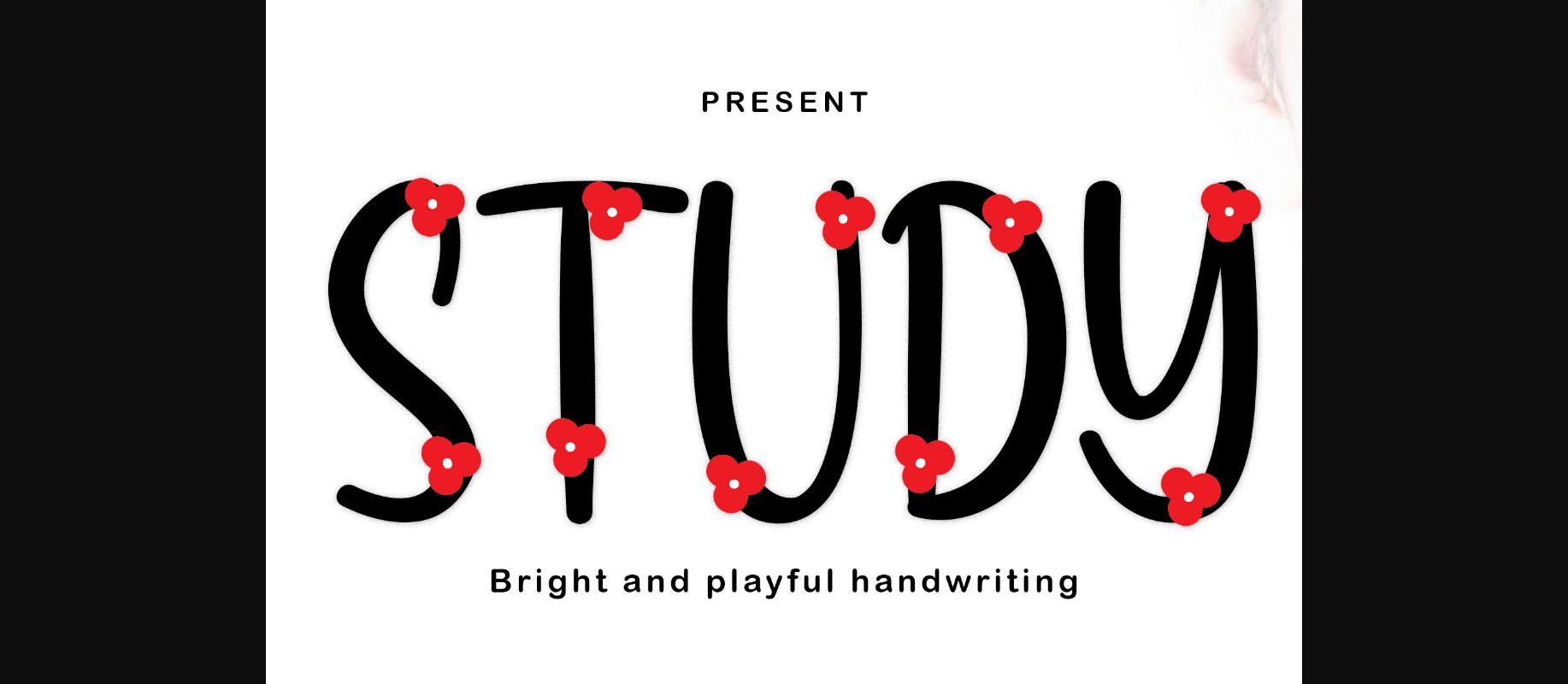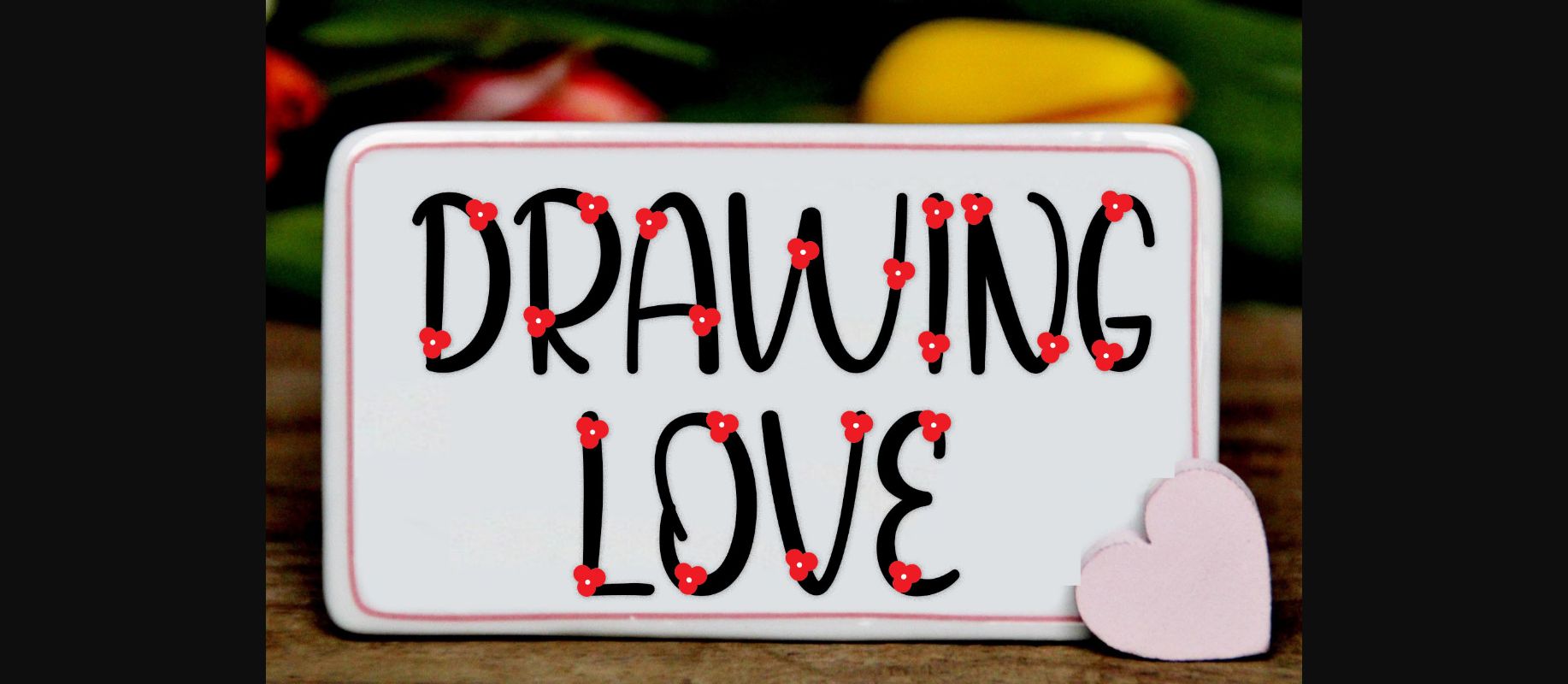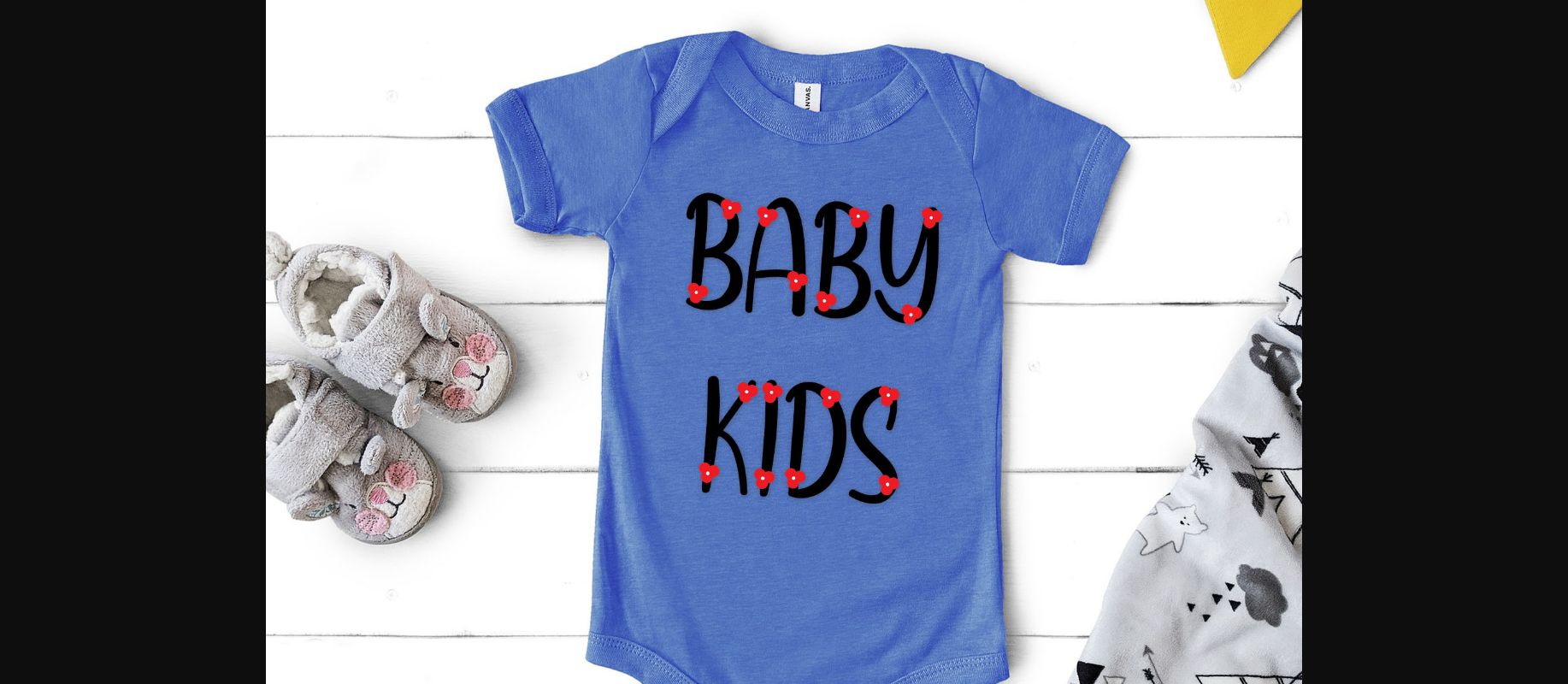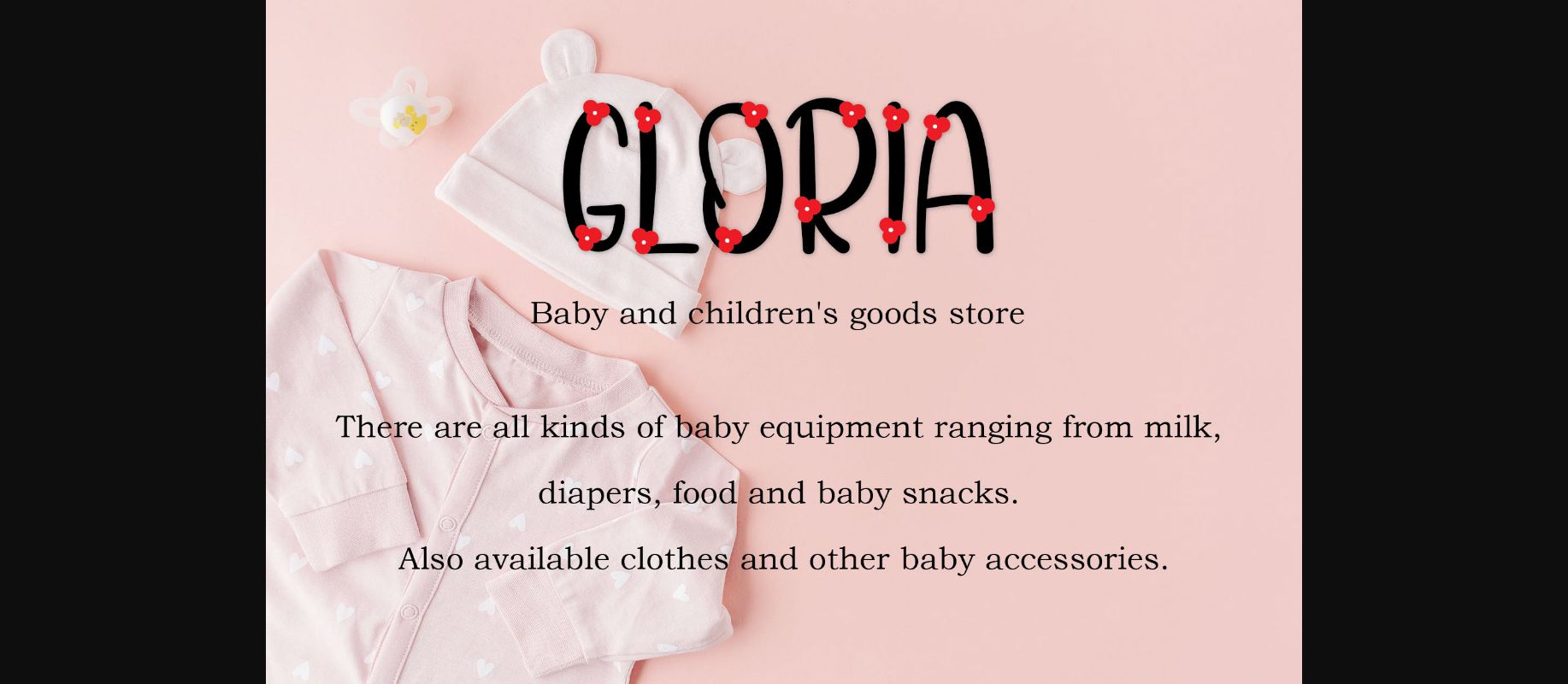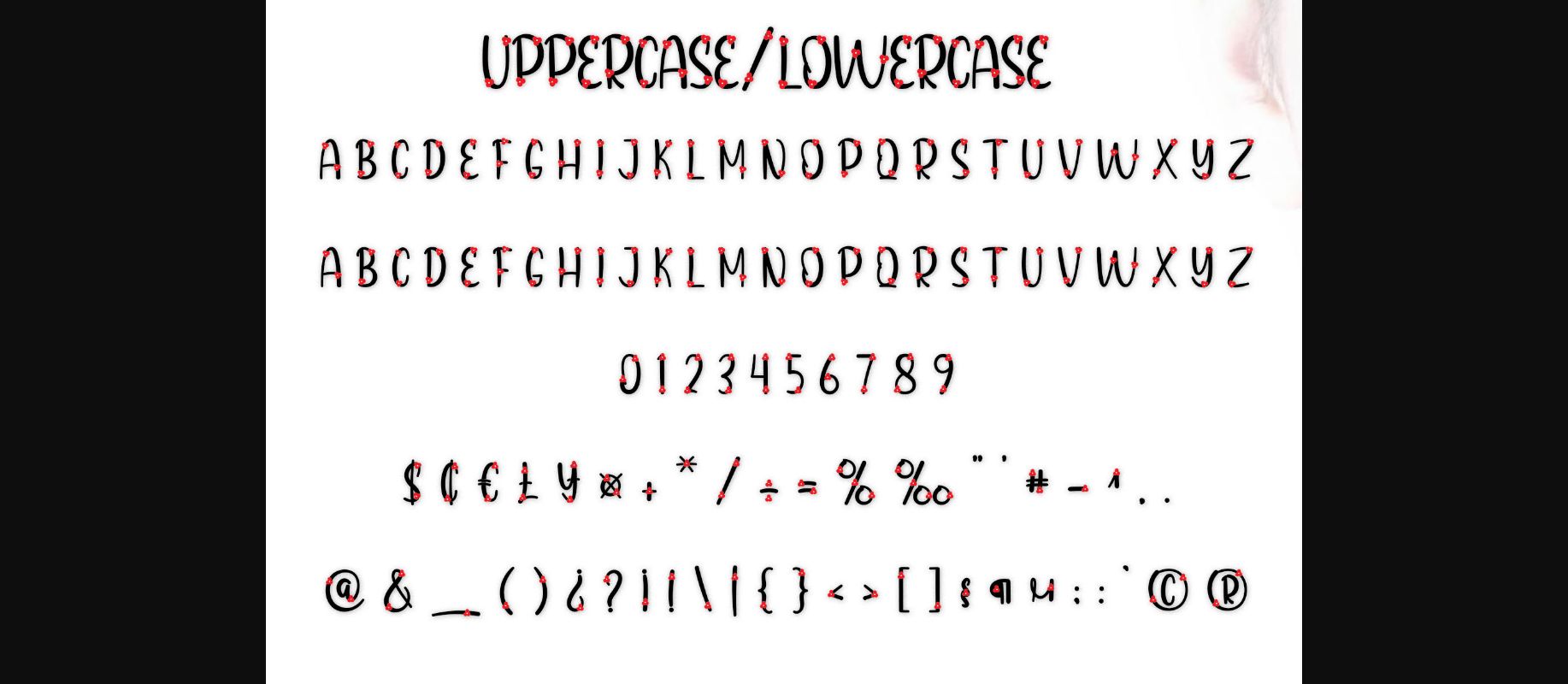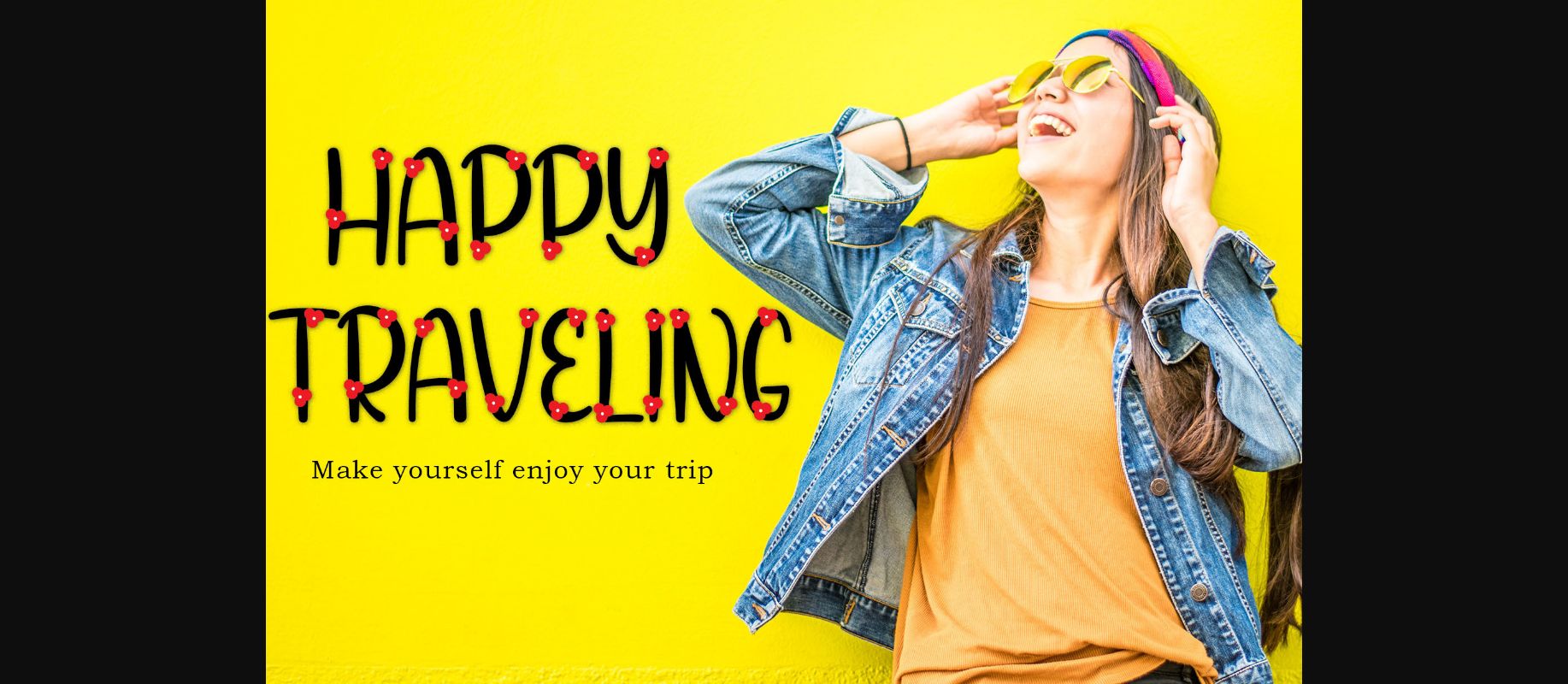
Study Font
About Study Font
Study is a unique and beautifully illustrated handwritten font with a touch of character that stands out, perfect for your favorite projects. Fall in love with her completely different and timeless style, and use it to create spectacular designs!